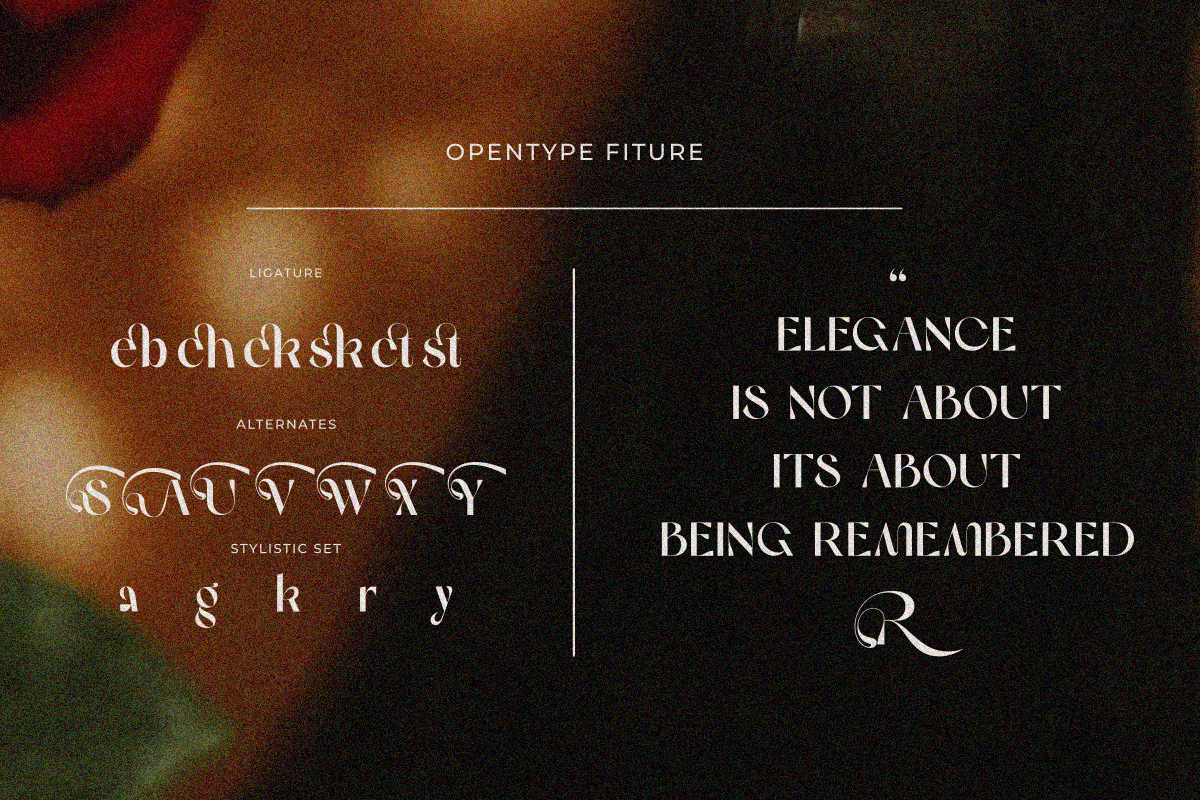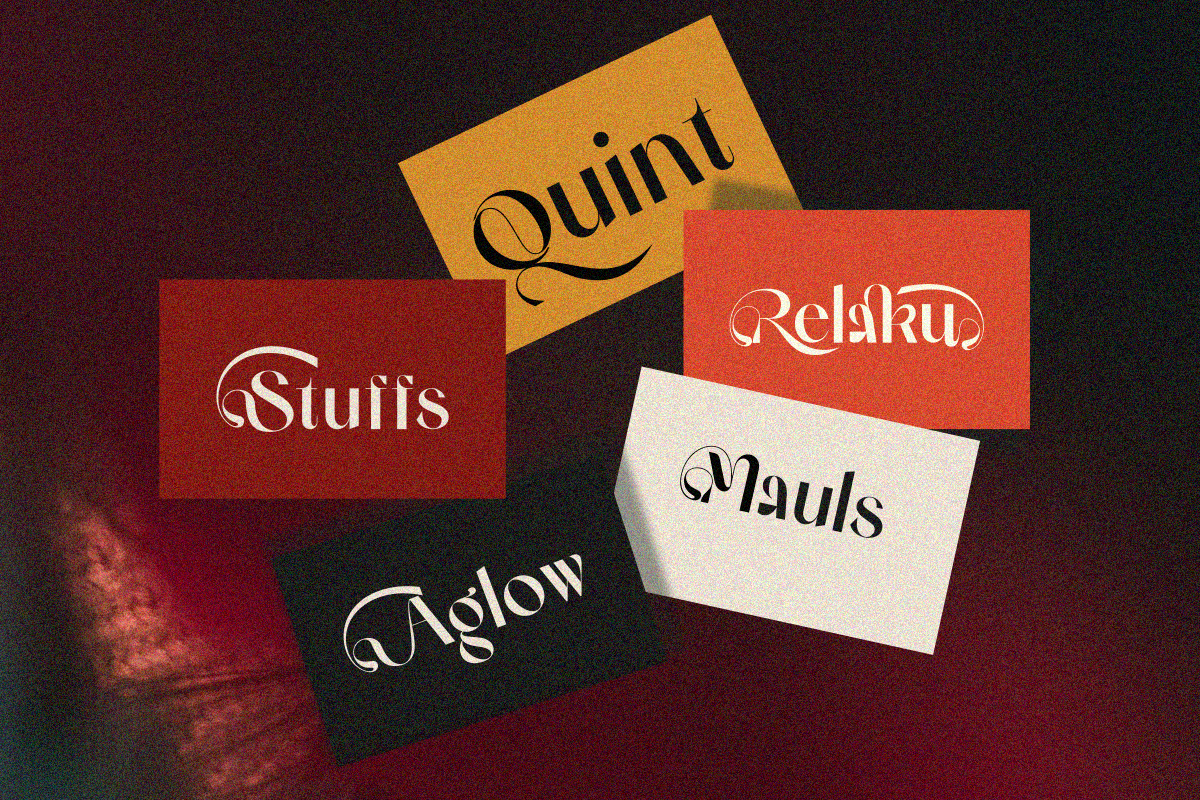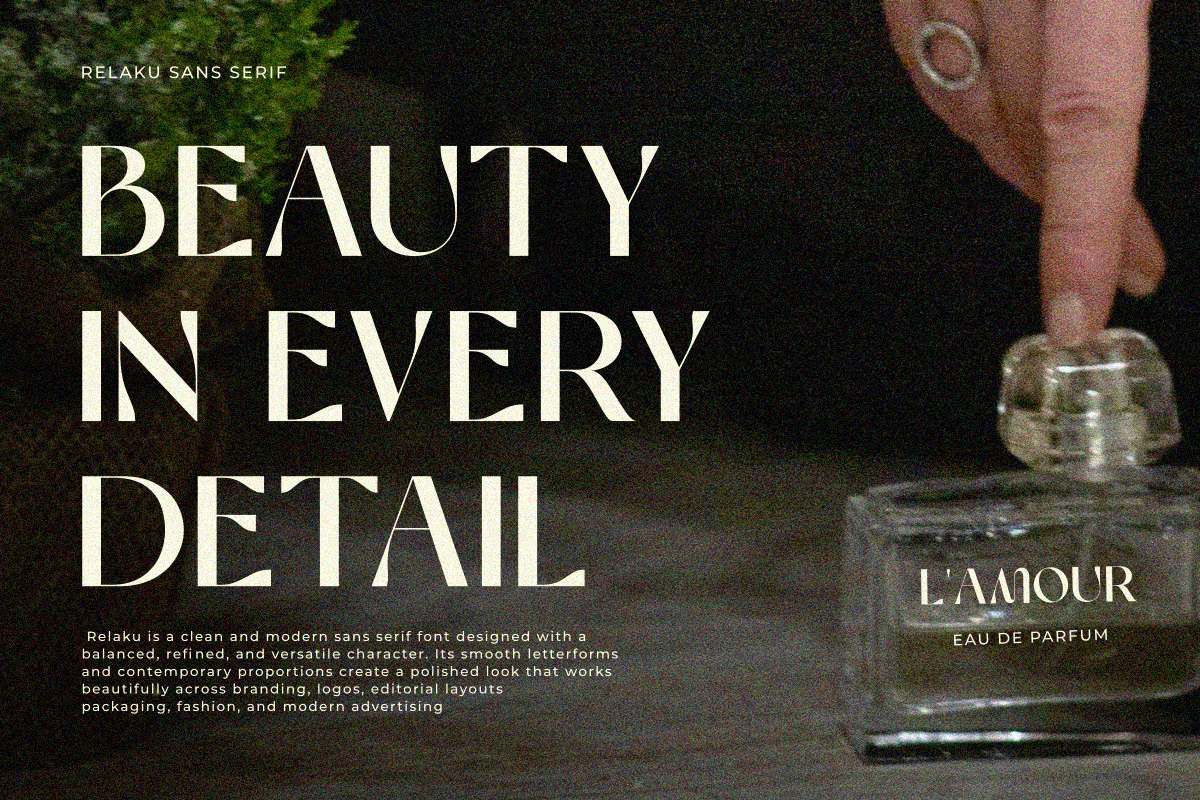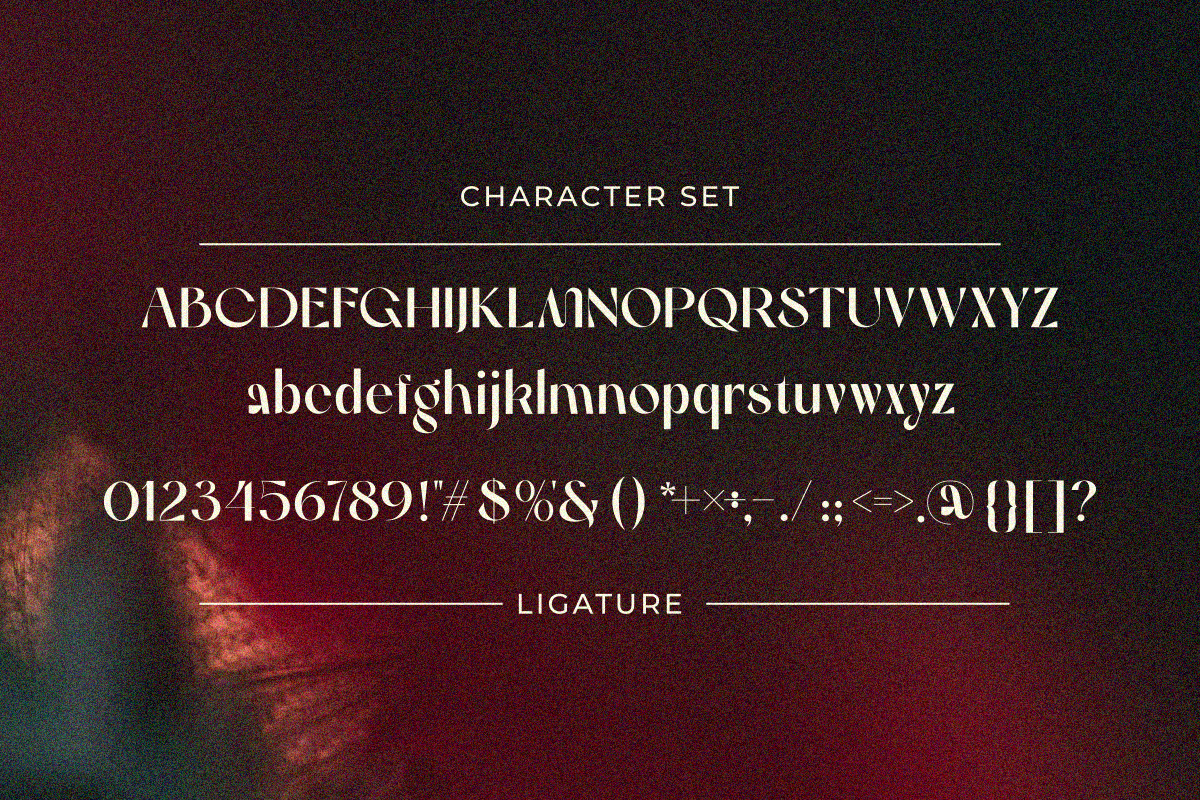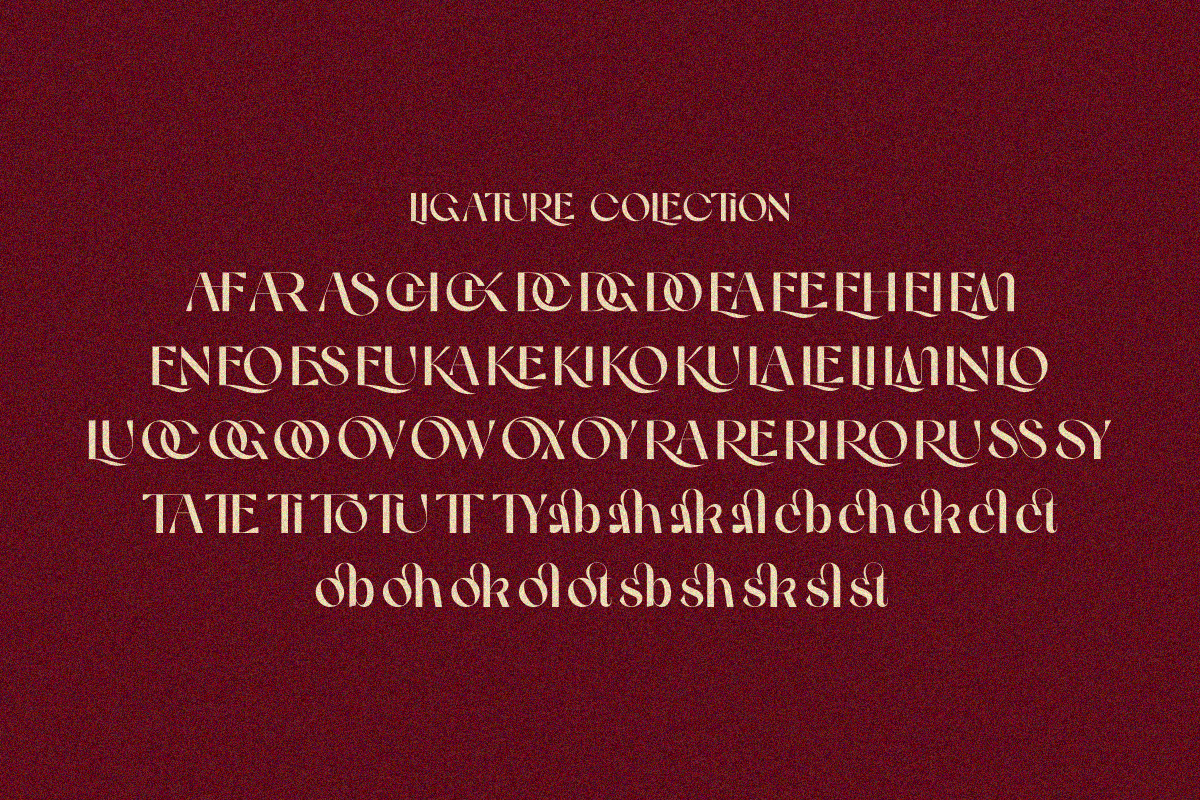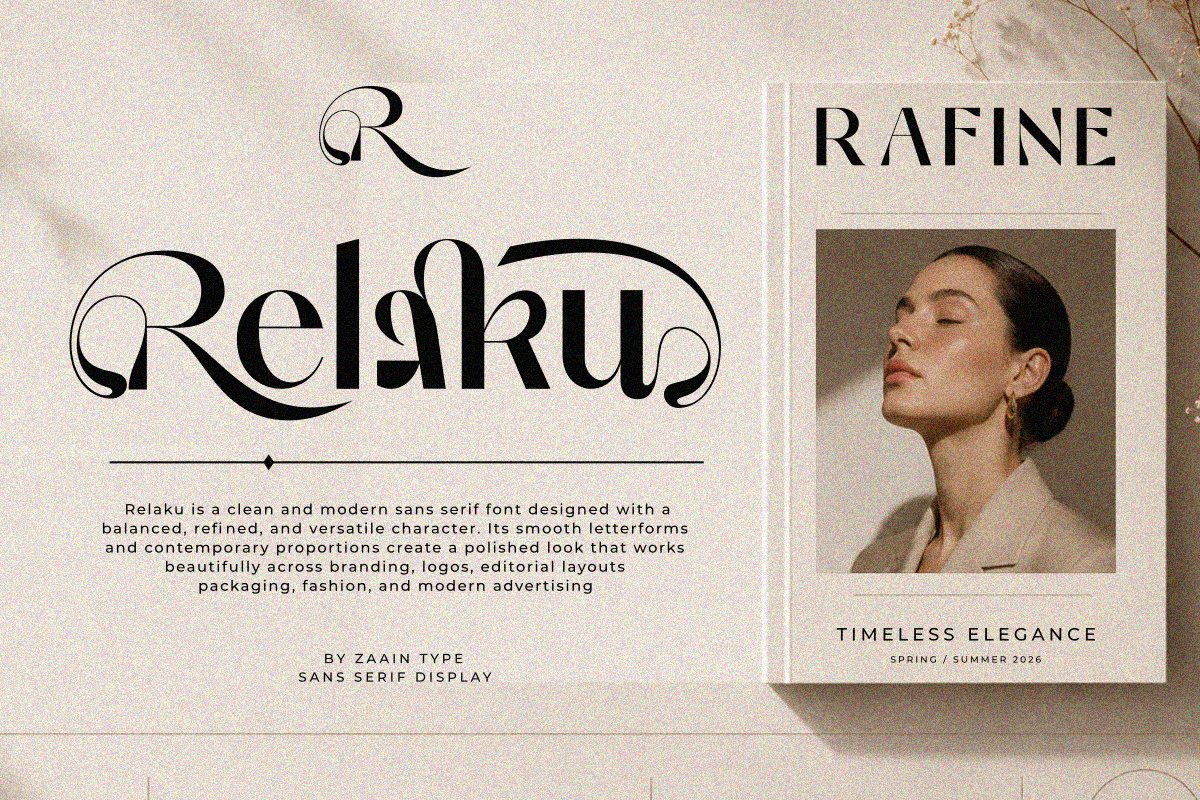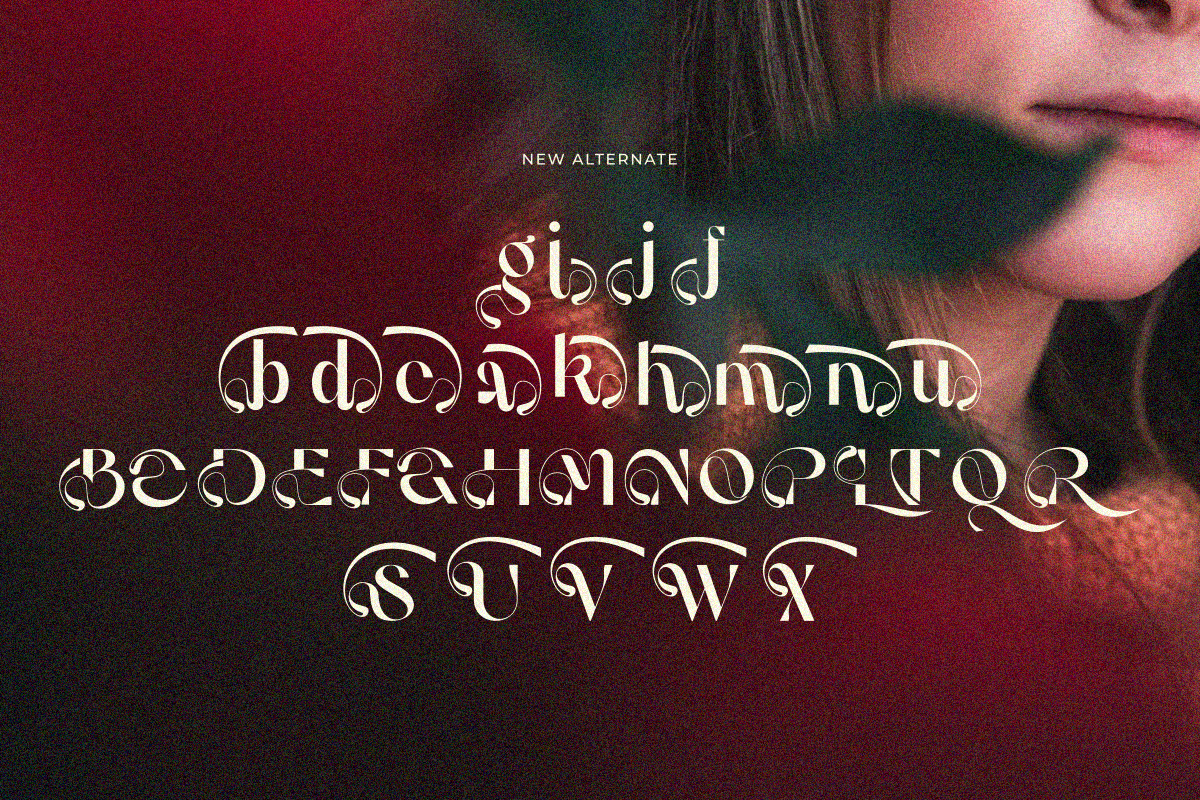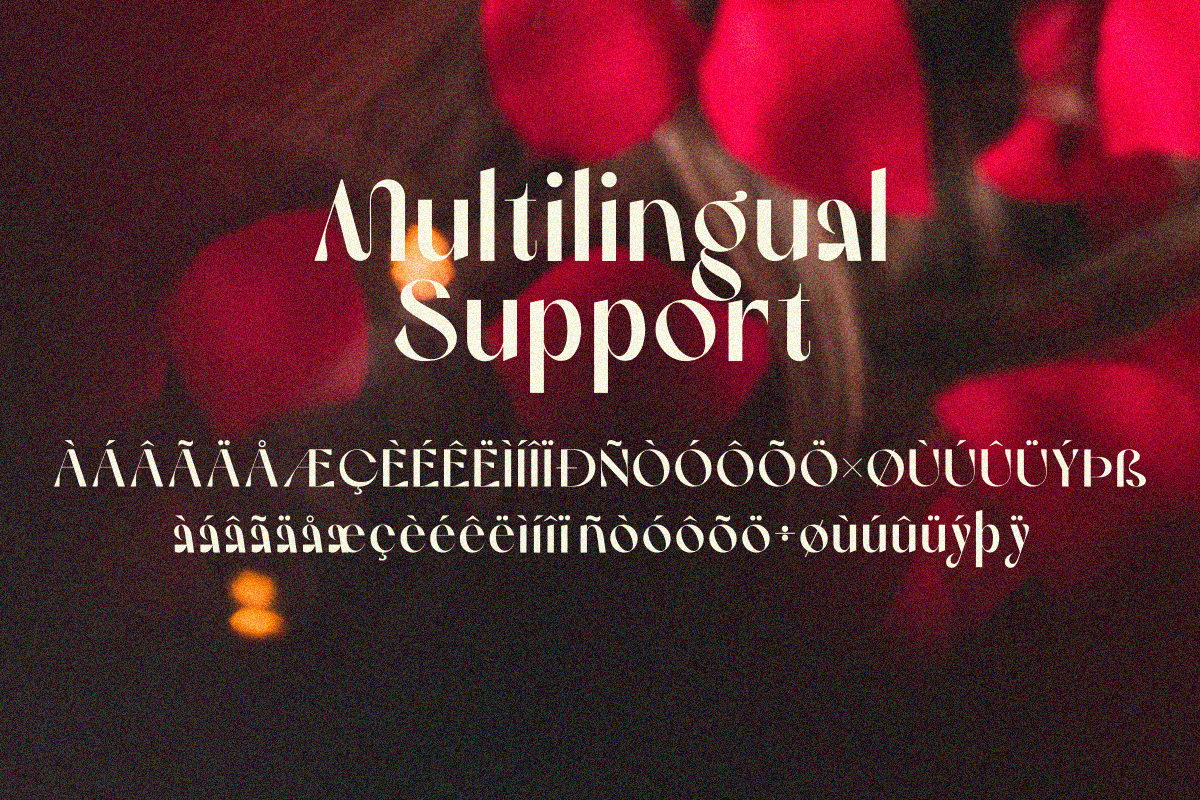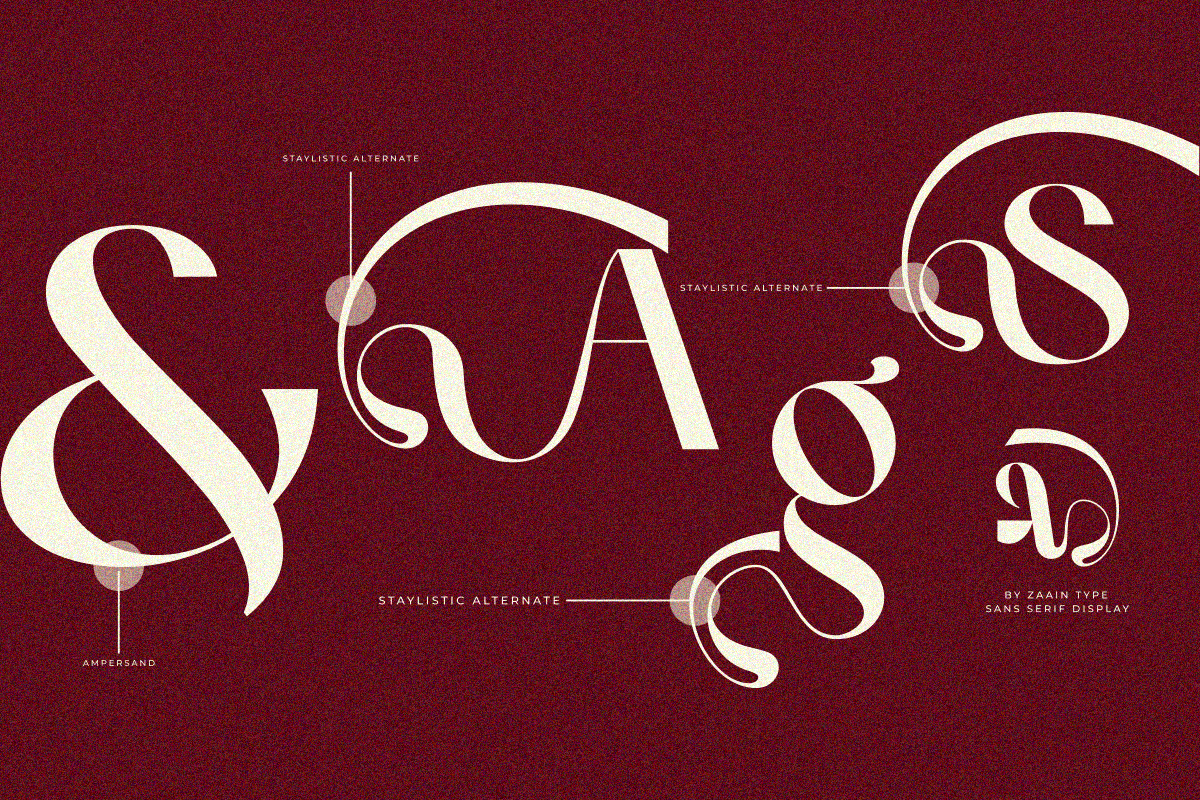
Relaku
Relaku is a clean and modern sans serif font designed with a balanced, refined, and versatile character. Its smooth letterforms and contemporary proportions create a polished look that works beautifully across branding, logos, editorial layouts, packaging, fashion, and modern advertising.
Simple yet distinctive, Relaku brings a fresh and professional touch to both minimalist and creative designs